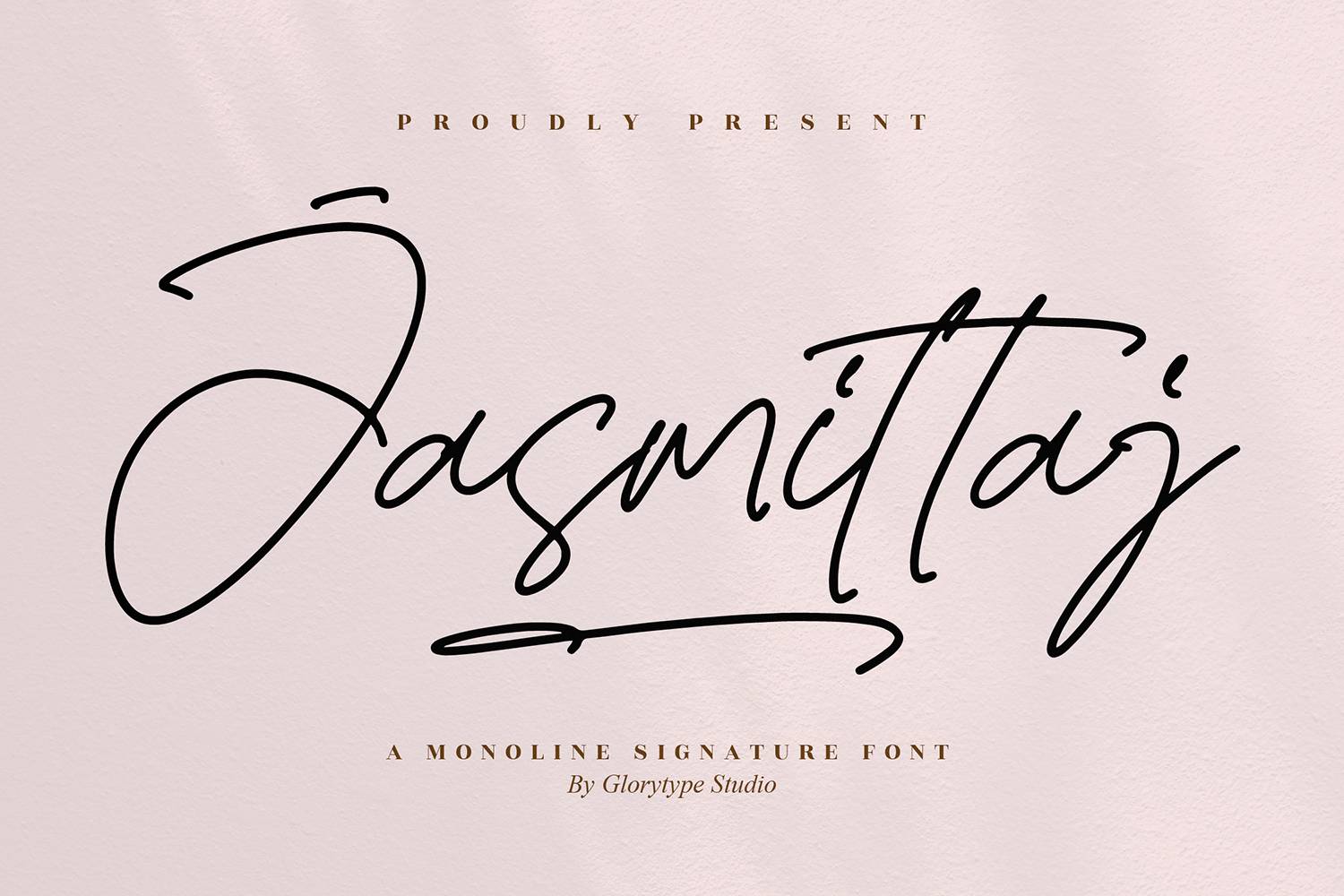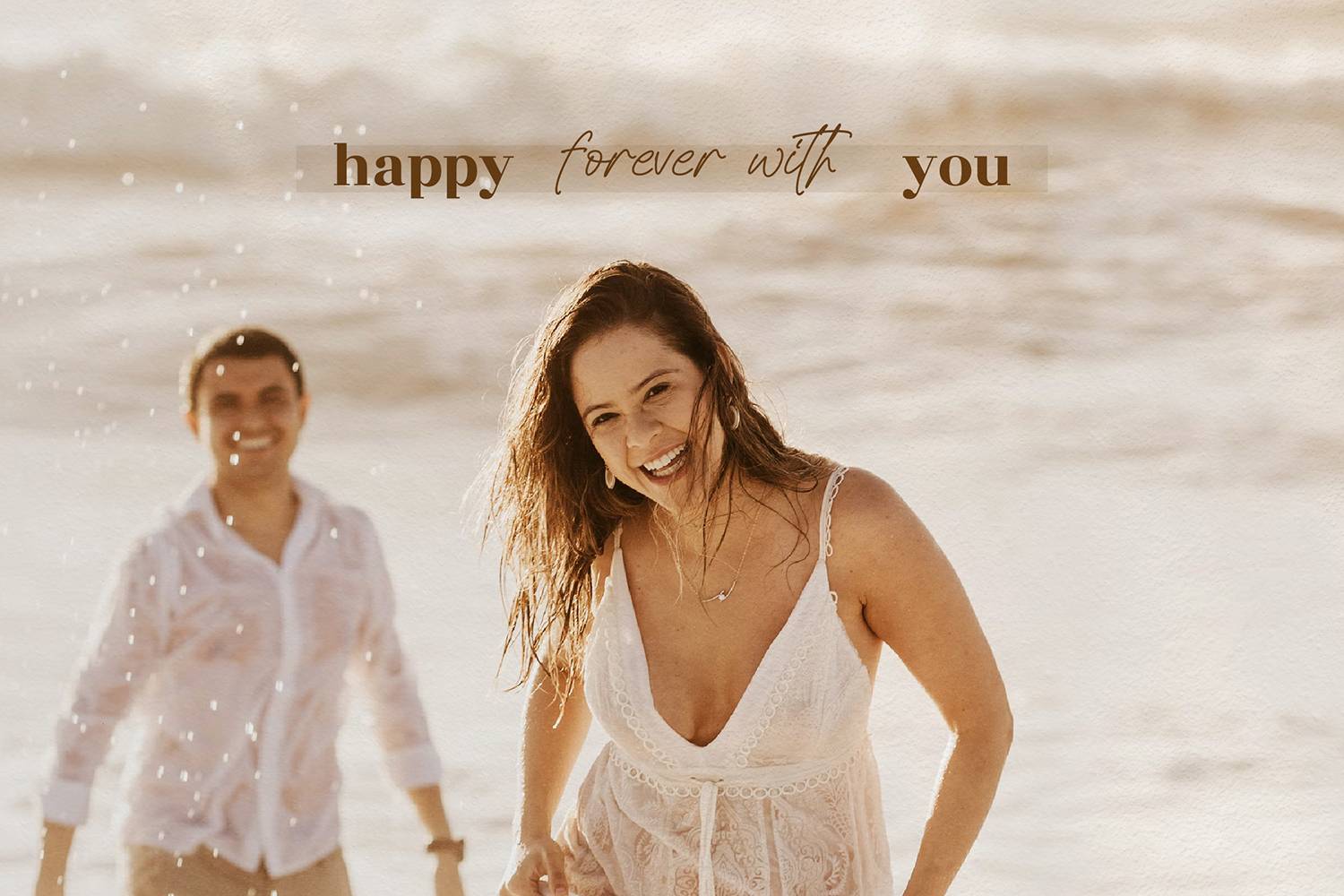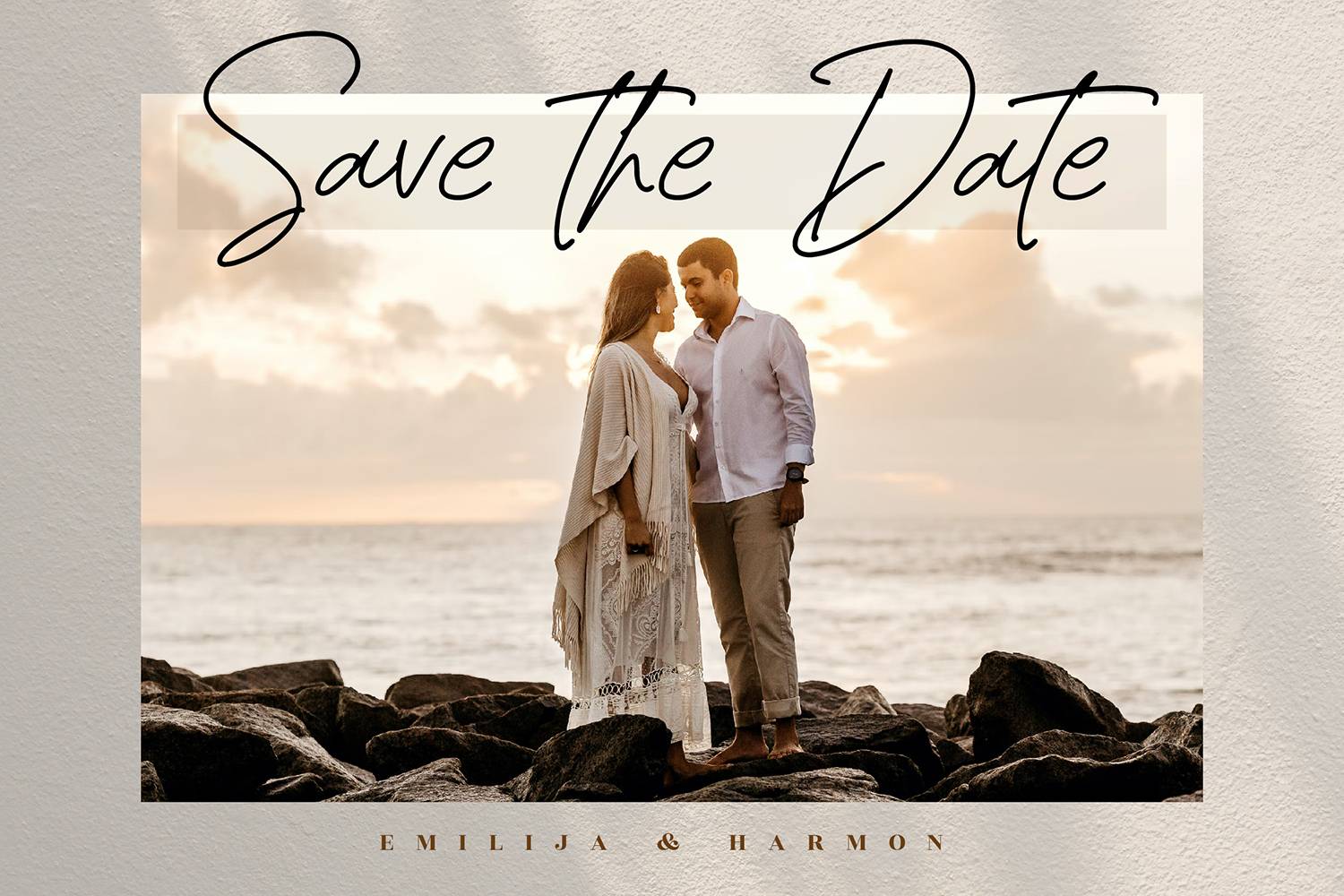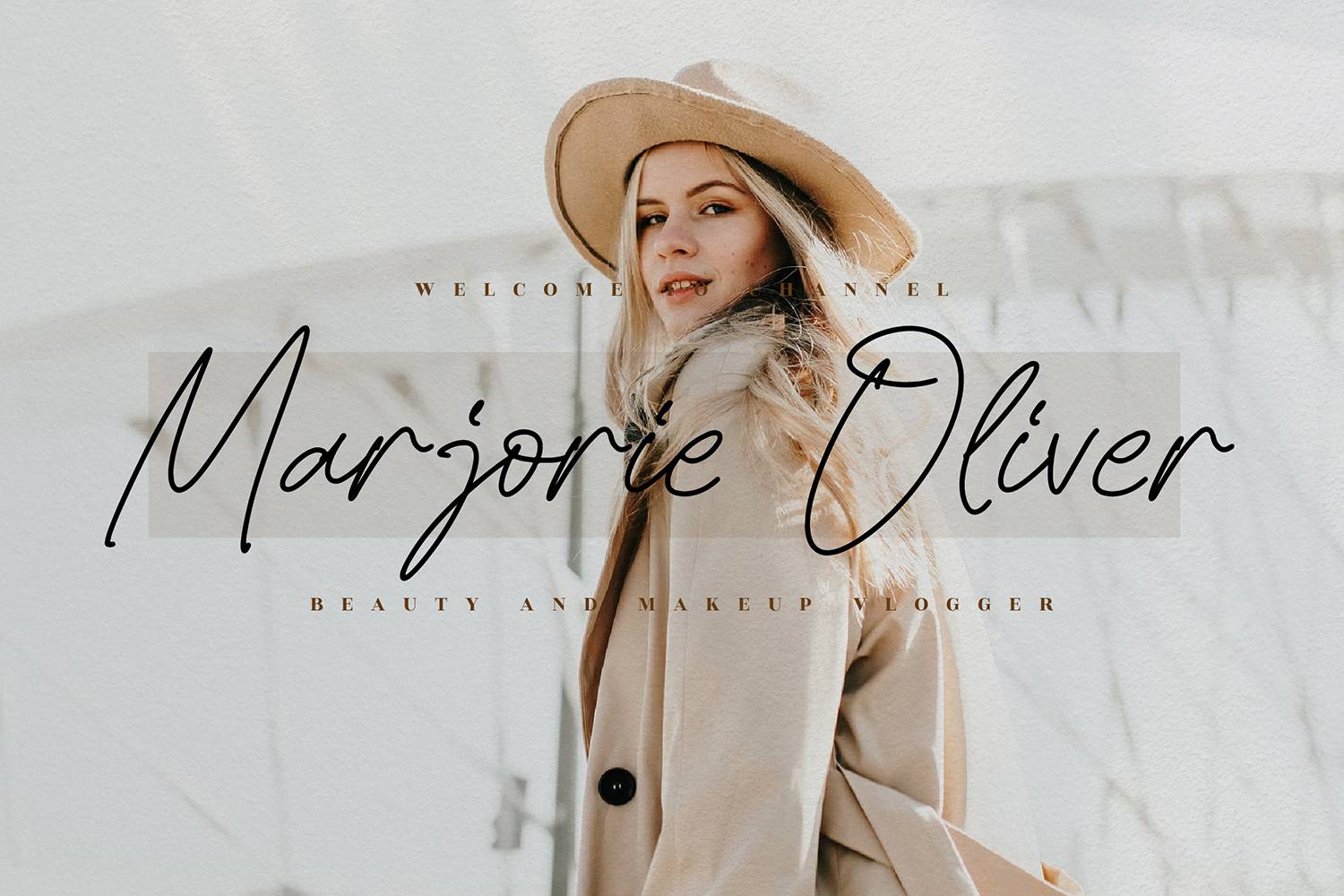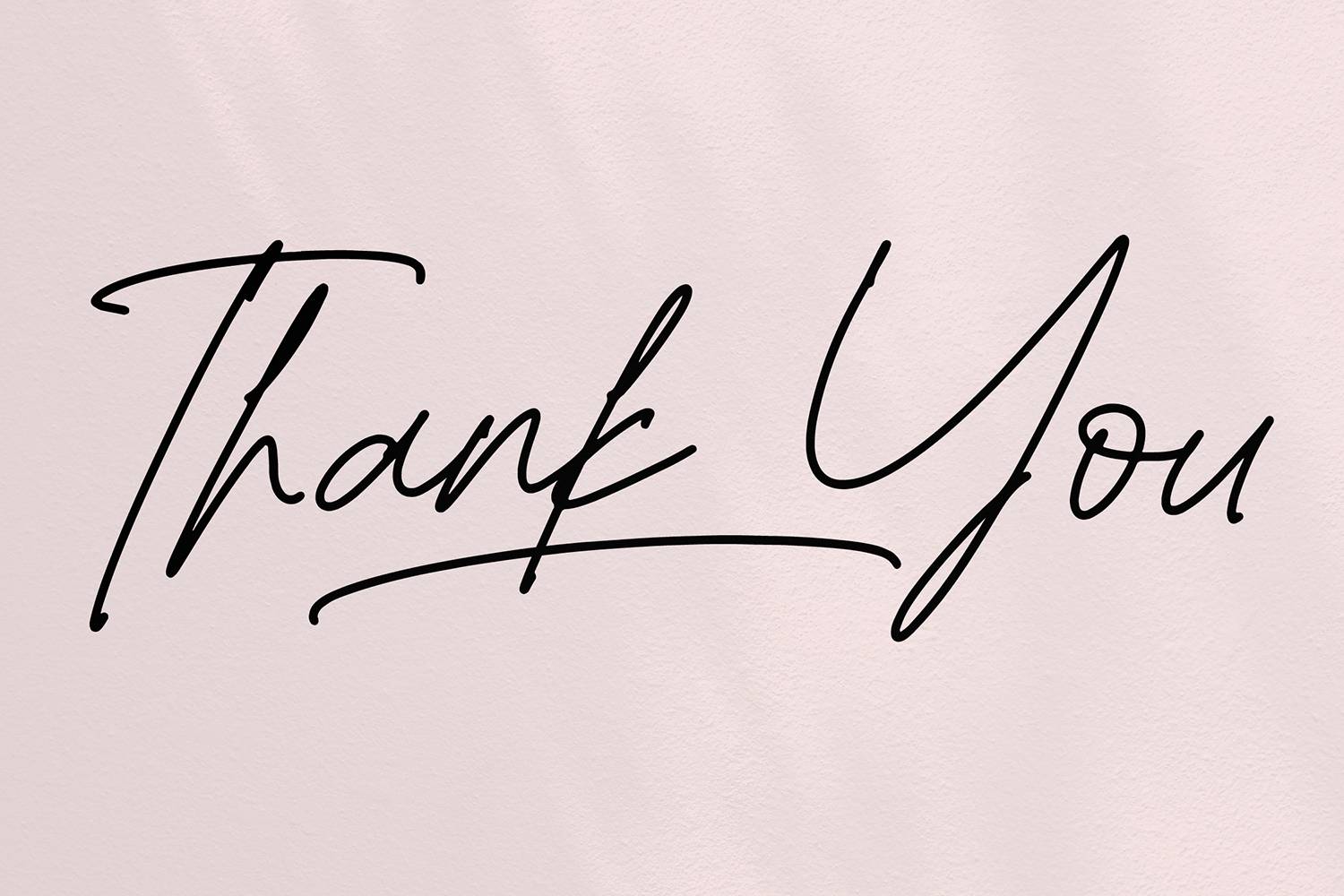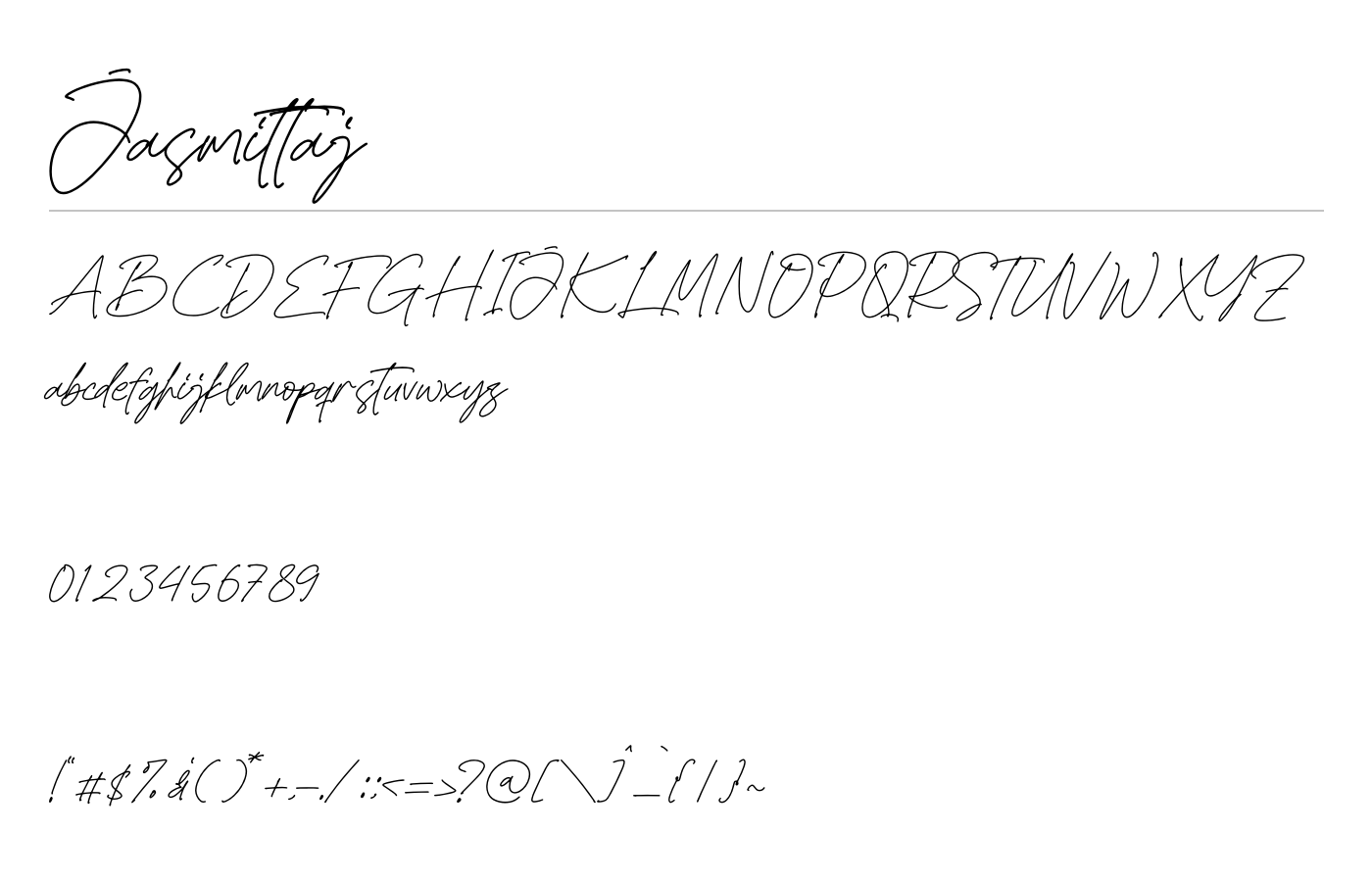
Jasmittaj is a delicate and elegant script font with fine, flowing strokes that mimic natural handwriting. Its slender, slightly condensed letterforms and graceful curves lend it a sophisticated yet personal feel, making it ideal for invitations, branding, and artistic projects where a touch of refined individuality is desired. This font works best in decorative and headline uses where its light, airy style can shine without compromising readability.
Jasmittaj Font
About Jasmittaj Font